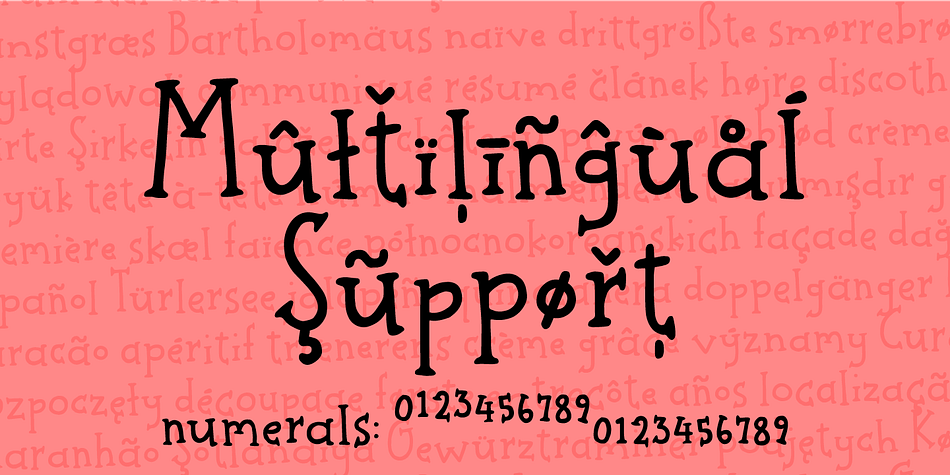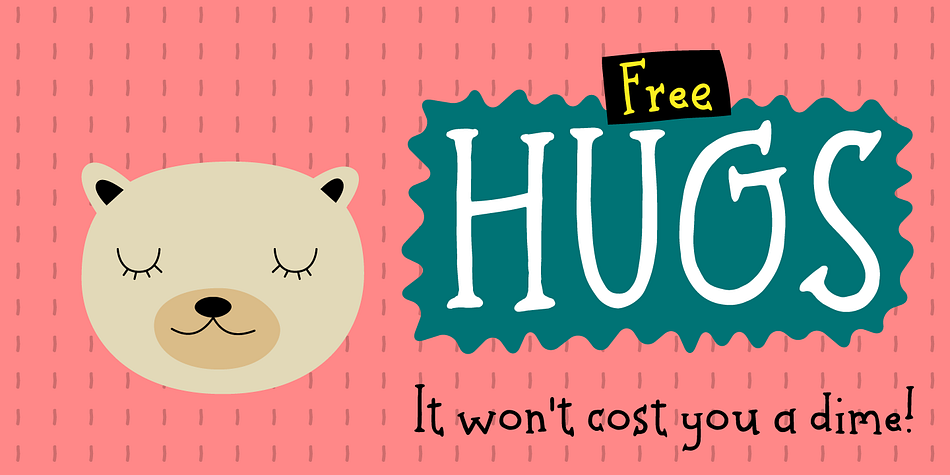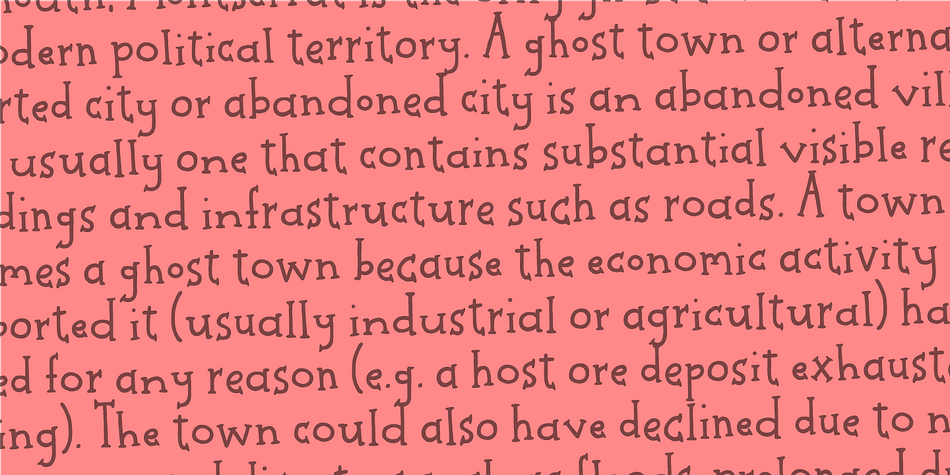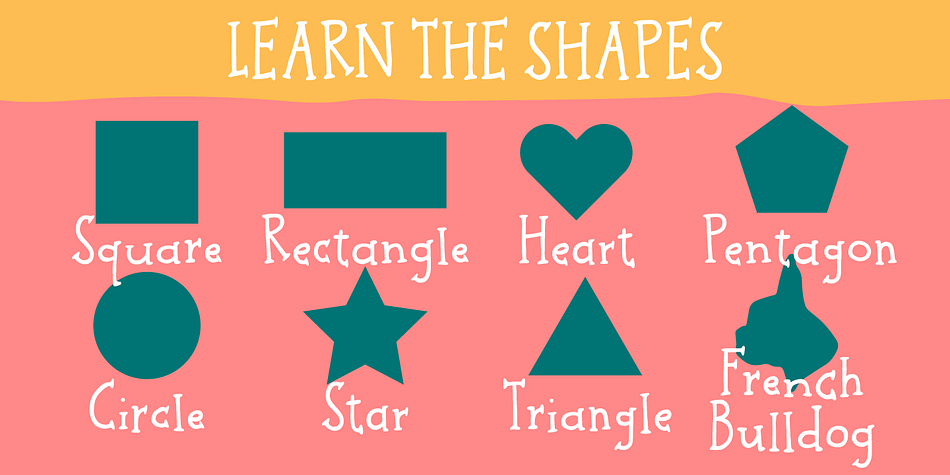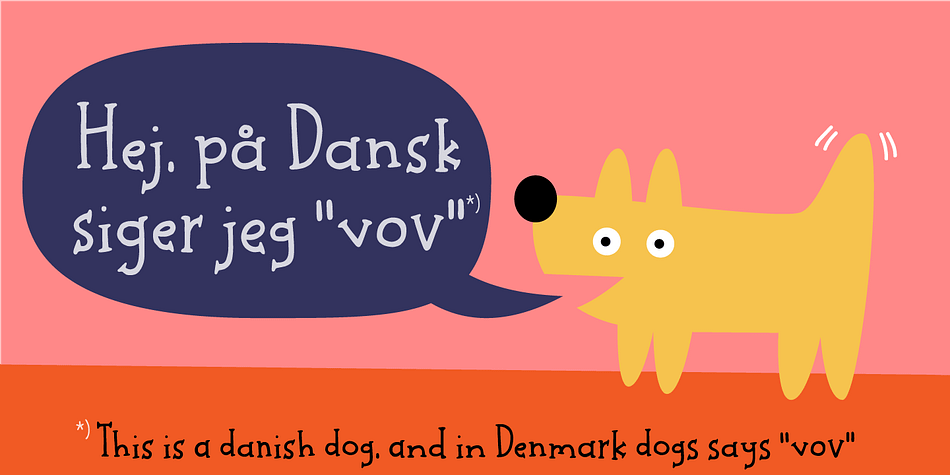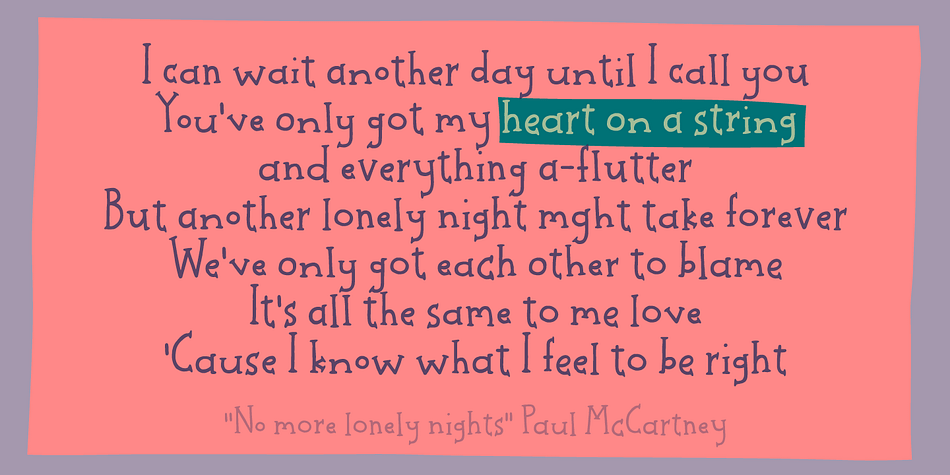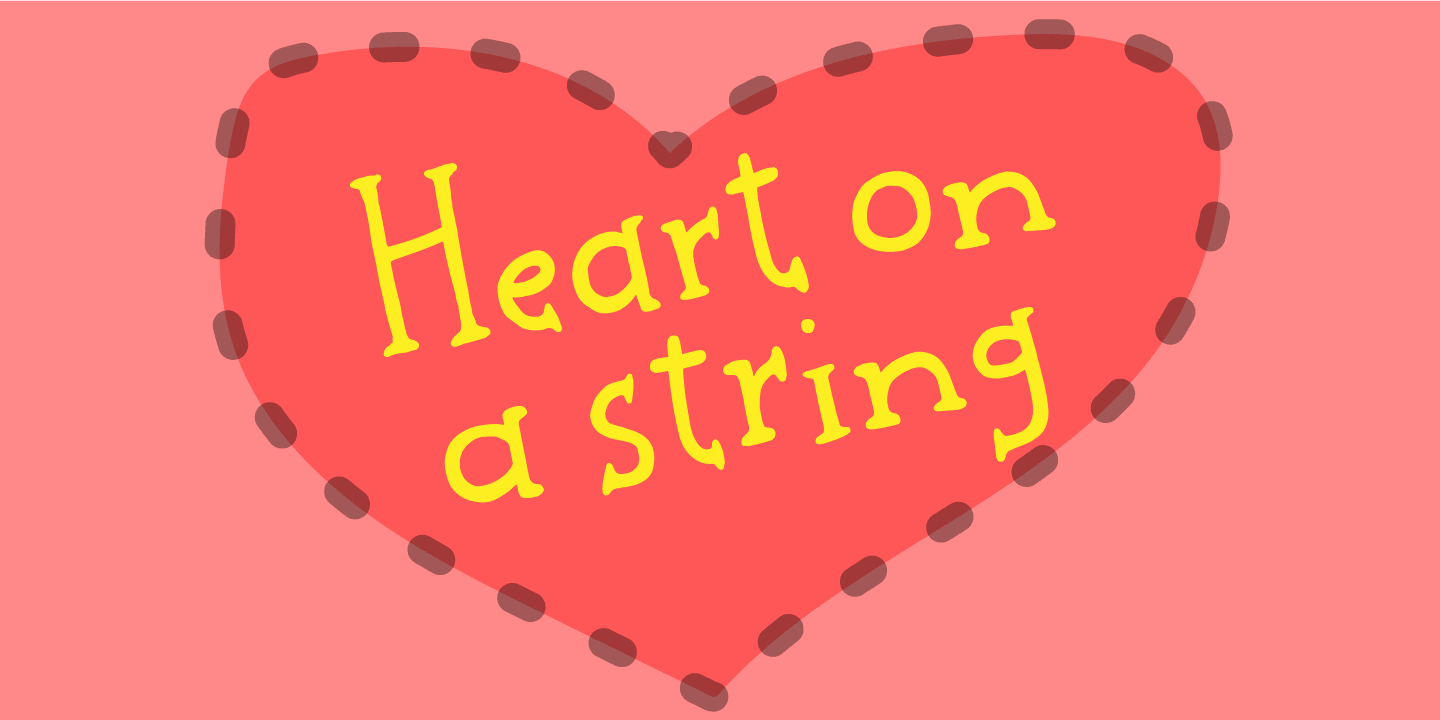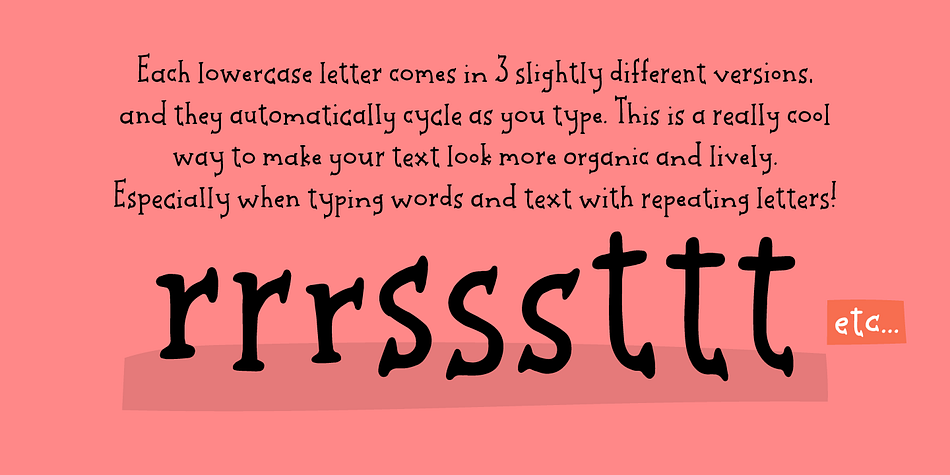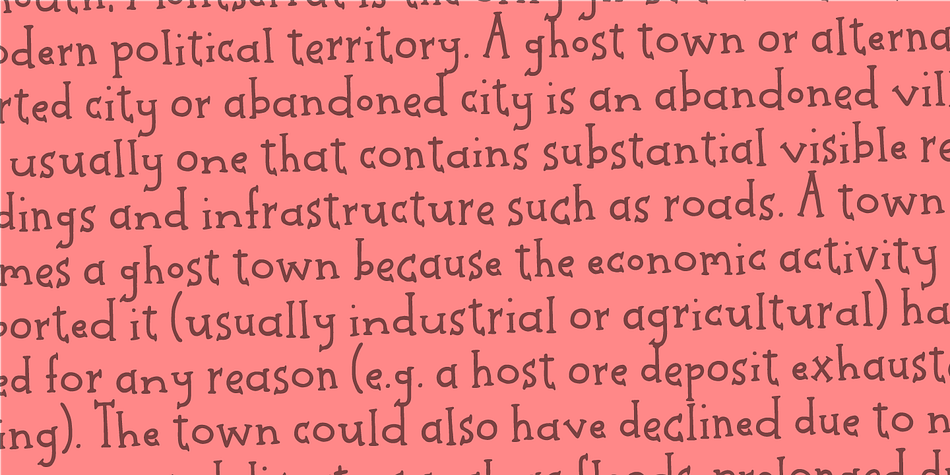
Heart on a string
Designed by Jakob Fischer, Heart on a string is a hand display and kids font family. This typeface has two styles and was published by Pizzadude.dk.
“Heart on a string” is from a song by Paul McCartney, and is one of his romantic ones. I tried to do the same by creating a font that has the same romantic feeling. And besides being romantic, the letters are unpredictable, playful and jumpy in a loose, but legible way